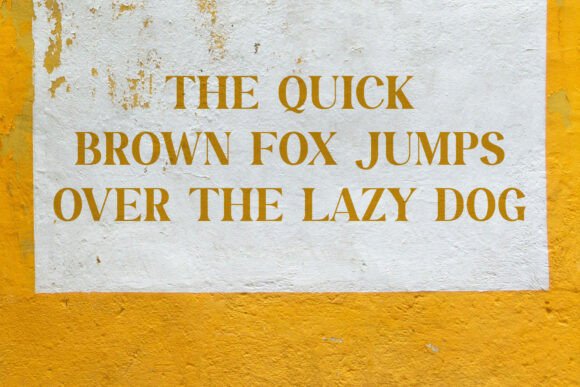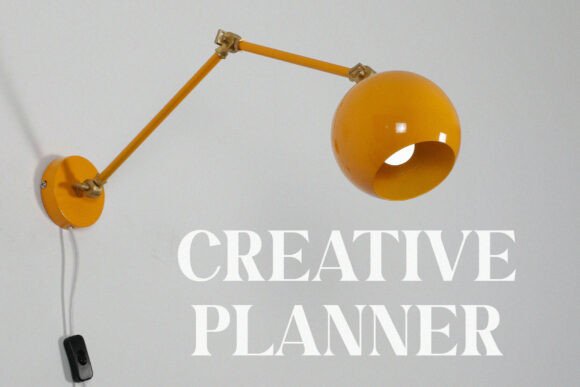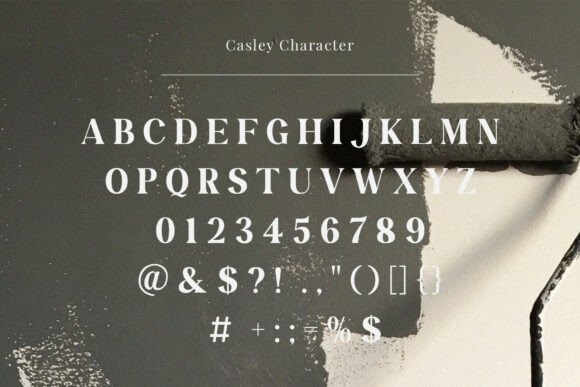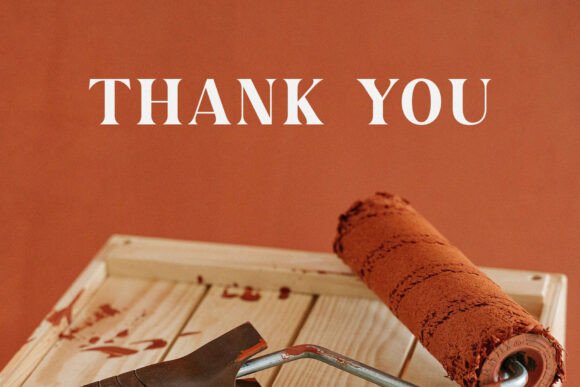
The Elegance of Casley Font: A Designer’s Delight
I still remember the time I was working on a wedding invitation project, and I just couldn’t seem to find the perfect font. My client wanted something elegant, bold, and sophisticated, but not too over-the-top. I scoured the internet, tried out dozens of fonts, and still, nothing seemed quite right. That was until I stumbled upon the Casley font. ✨
It was love at first sight! The elegant serifs, the bold yet refined style, and the incredible versatility of Casley font won me over. I used it for the wedding invitation, and it set the tone for the entire project. My client was thrilled, and I was relieved. 😊 In this article, I’ll share my experience with Casley font, its features, and how to make the most of it in your designs.
An Honest Review of Casley Font
What I Love About Casley Font
• ✅ Elegant and bold serif style that’s perfect for making a statement
• ✨ Incredibly versatile, suitable for a wide range of design projects
• 🔥 Supports OpenType features, glyphs, and stylistic alternates for added creativity
• 💻 Works beautifully on both digital and print platforms
While Casley font is an excellent choice, there are a few things to keep in mind: 🤔
• ⚠️ Some users may find the bold style a bit too heavy for certain design projects
• ⚠️ Limited availability of condensed or italic styles, which may be a drawback for some users
The Story Behind Casley Font
While I couldn’t find any information on the exact design process of Casley font, I imagine it was created with the intention of providing a elegant and versatile font for designers and crafters. Perhaps the designer wanted to create a font that would evoke a sense of luxury and sophistication, while still being approachable and accessible. 🤔
Q: What is Casley font best suited for?
A: Casley font is perfect for a wide range of design projects, including wedding invitations, stationary art, social media posts, and more!
Q: Is Casley font available in different styles?
A: While Casley font has a range of styles, including bold and regular, it may not have as many variations as some other fonts. However, its versatility and OpenType features make up for this.